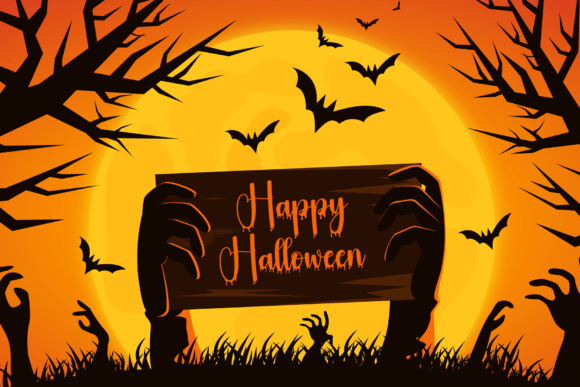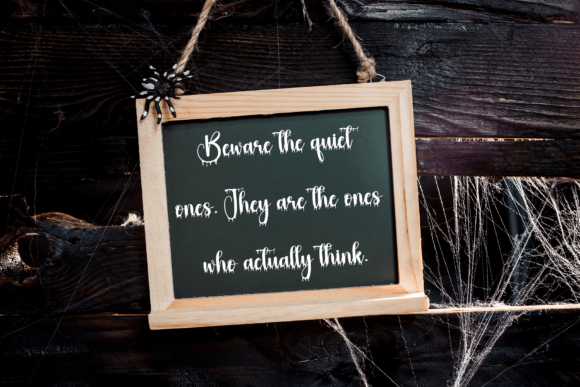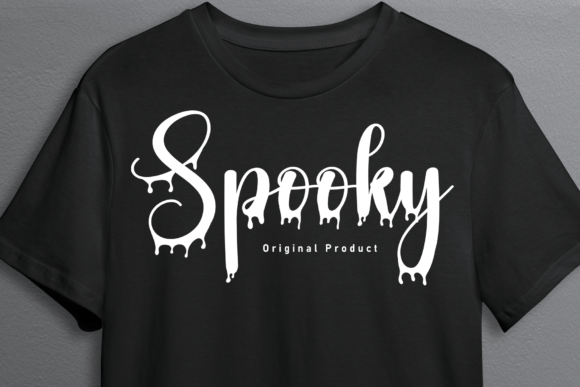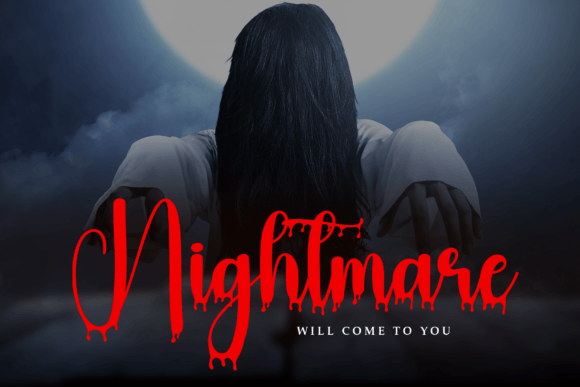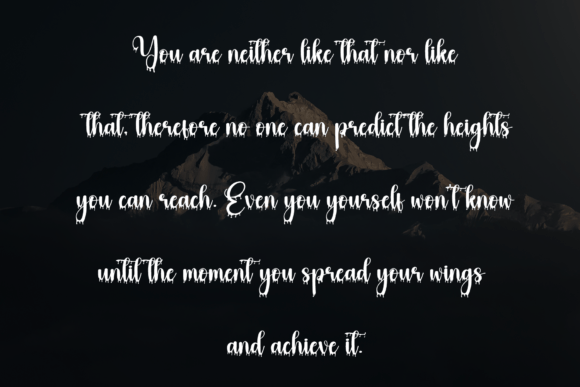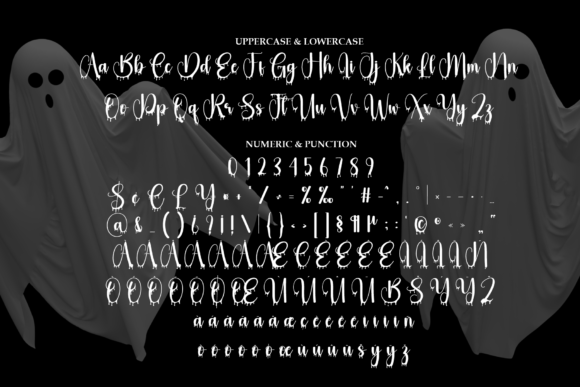
Introducing Ghost Christmas Font: The Ultimate Holiday Addition for a Spine-Tingling Vibe
Are you looking for a unique and captivating font to add a touch of eerie elegance to your holiday projects? Look no further than the Ghost Christmas Font. This chilling handwritten font is designed to bring a haunting twist to your festive designs, making it perfect for designers and crafters who want to create something truly unforgettable.
The Haunting Beauty of Ghost Christmas Font
Each letter in the Ghost Christmas Font is intricately crafted to evoke a sense of ghostly elegance. The font features a dripping blood effect that adds a touch of macabre to your designs, making it perfect for those who want to create a spine-tingling vibe. The haunting twist on traditional holiday fonts makes it an excellent choice for those who want to stand out from the crowd and create something truly unique.
Perfect for Festive Designs
Whether you’re designing holiday cards, invitations, or social media graphics, the Ghost Christmas Font is the perfect addition to your project. The font’s eerie elegance and haunting twist make it an excellent choice for a variety of festive designs, including:
- Digital and print advertising
Key Features of Ghost Christmas Font
The Ghost Christmas Font offers a range of features that make it an excellent choice for designers and crafters. Some of the key features include:
- Chilling handwritten font with a haunting twist
- Dripping blood effect for a touch of macabre
- Eerie elegance perfect for festive designs
- Intricately crafted letters for a unique look
- Perfect for holiday cards, invitations, and social media graphics
Tips for Using Ghost Christmas Font
To get the most out of the Ghost Christmas Font, here are a few tips to keep in mind:
- Use it sparingly: The Ghost Christmas Font is designed to make a statement, so use it sparingly to add a touch of eerie elegance to your designs.
- Pair it with complementary fonts: Pair the Ghost Christmas Font with complementary fonts to create a unique and visually appealing design.
- Experiment with colors: The Ghost Christmas Font looks great in a range of colors, so experiment with different hues to find the perfect look for your design.
The Ghost Christmas Font is a unique and captivating addition to any holiday project. With its chilling handwritten design, haunting twist, and eerie elegance, it’s perfect for designers and crafters who want to create something truly unforgettable. Whether you’re designing holiday cards, invitations, or social media graphics, the Ghost Christmas Font is sure to add a spine-tingling vibe to your festive designs.